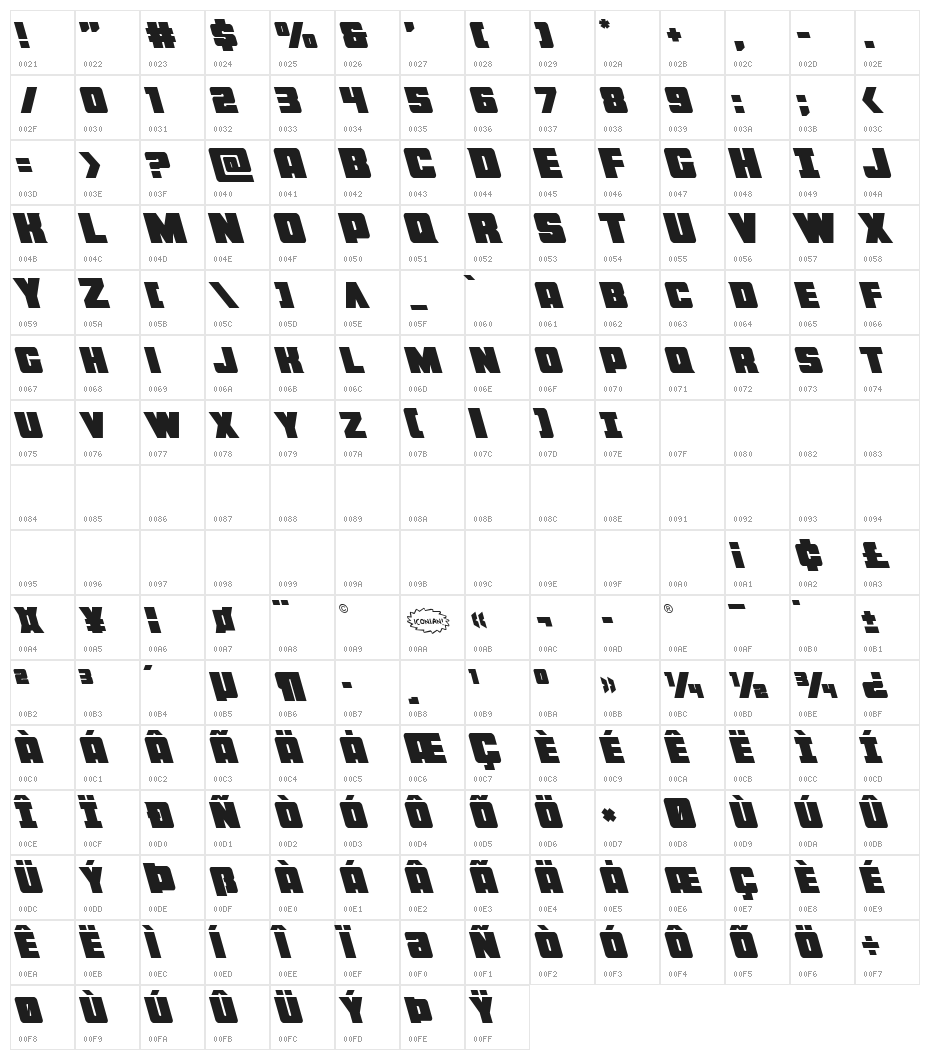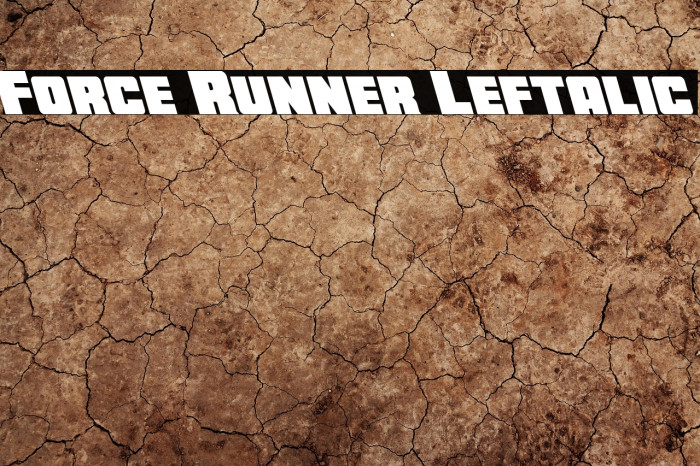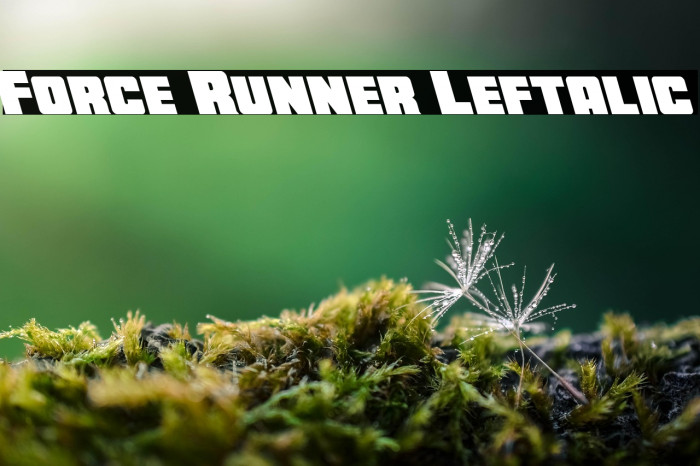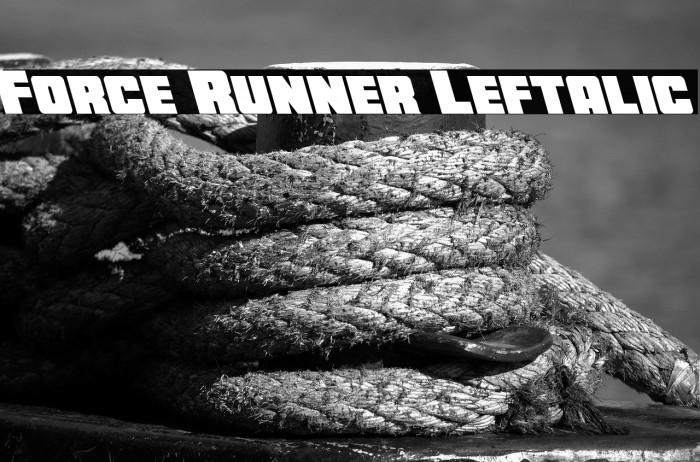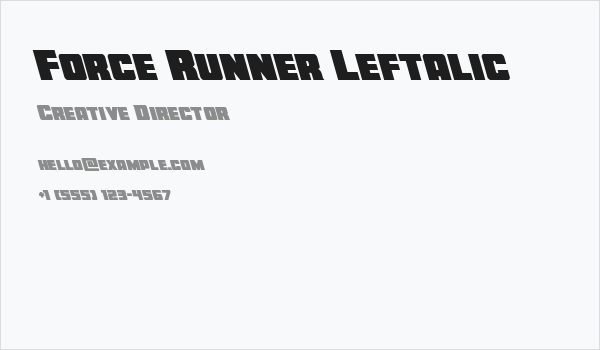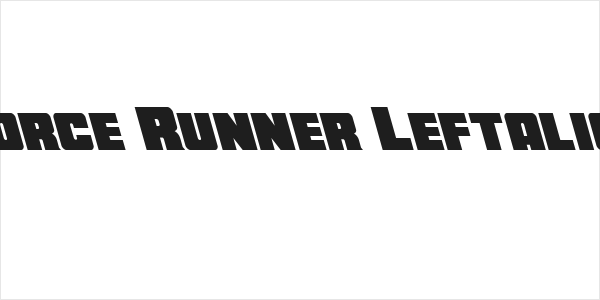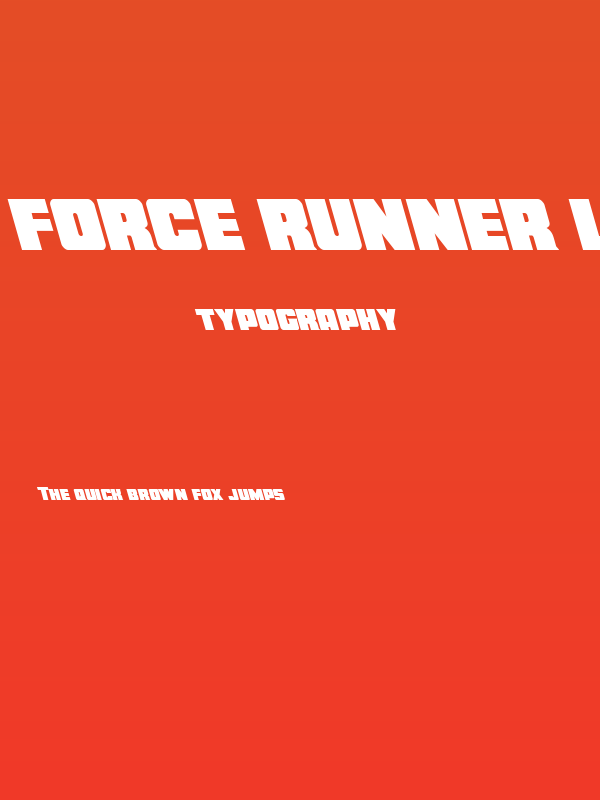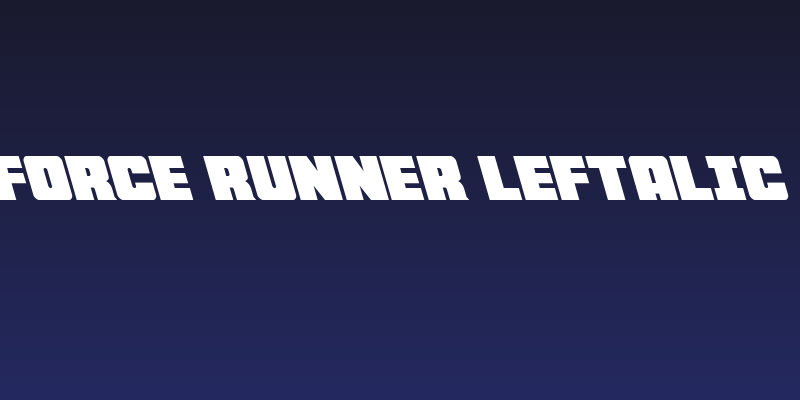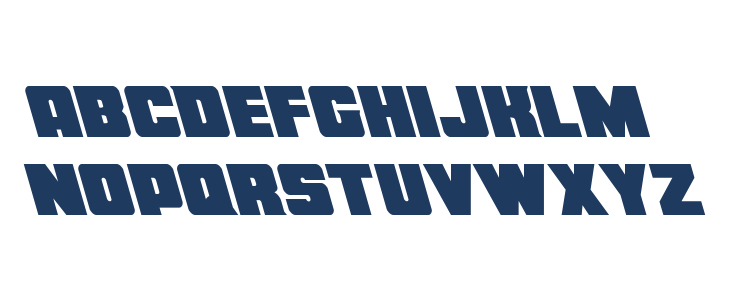
Force Runner Leftalic Font
Force Runner Leftalic Description
This font features a bold and dynamic design with a distinct slant to the left, giving it a sense of motion and energy. The characters are blocky and robust, with thick strokes that convey strength and impact. The uppercase and lowercase letters maintain a consistent style, while the numerals and special characters complement the overall aesthetic. The font's boldness and unique slant make it ideal for attention-grabbing headlines and designs that require a strong visual presence.